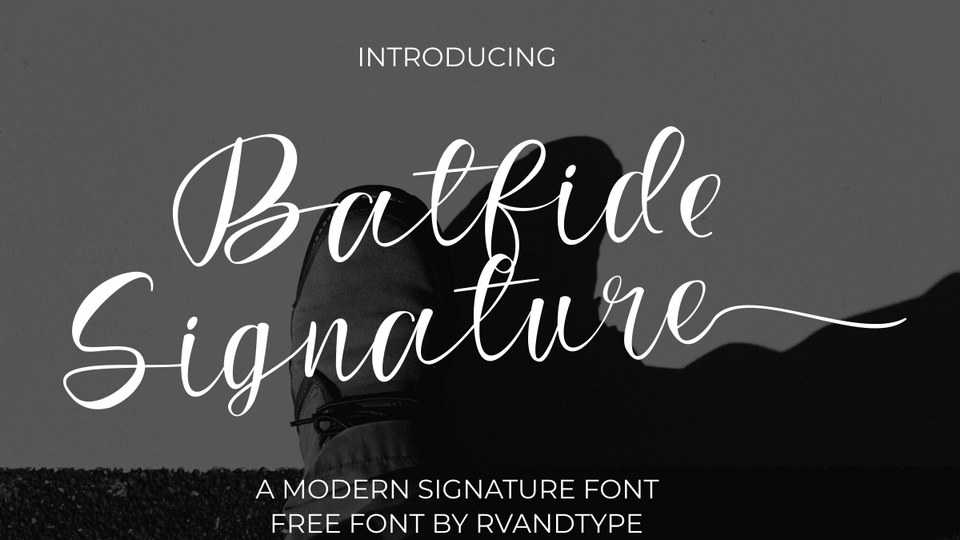
Download Batfide Signature font, a lovely and delicate script typeface that exudes elegance and class. Batfide Signature font is great for logos, branding, invitations, stationary, wedding designs, social media and every other projects.
Designer: Rvandtype Studio